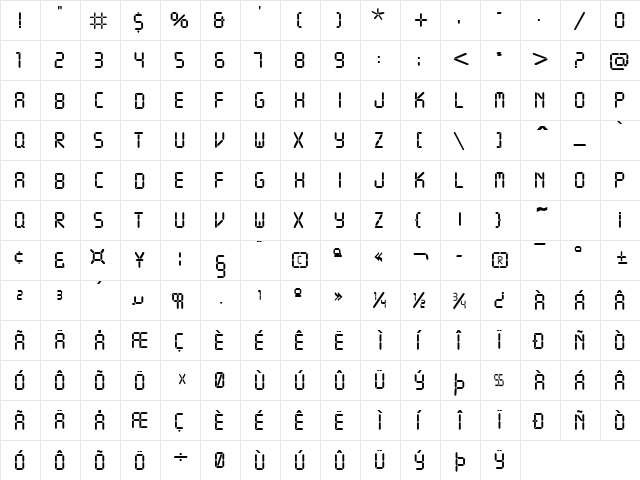
Readout Regular
Design Context for Readout Typeface
Readout takes a measured approach to typography — its balanced proportions and neutral character make it a reliable workhorse for both digital and print work.